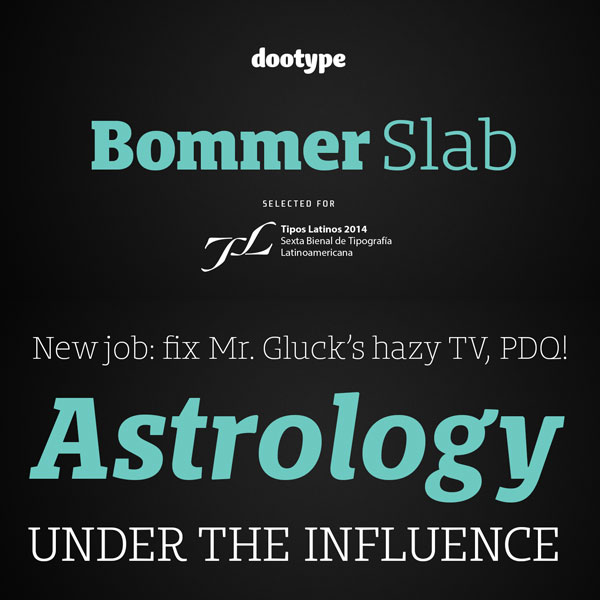
The Bommer Slab Font.
Brazilian type designer Eduilson Wessler Coan of foundry dooType has started to work on the Bommer project in January of 2014. Bommer Slab is the first published family of this project. The family includes 14 fonts, which consist of 7 uprights and 7 matching italics for each weight. Bommer offers a strong look that works great for dominant headlines. Due to the good readability, the Bommer Slab font family is also a perfect choice for text blocks. Bommer Slab includes different typographic options and features. It also supports multiple languages. The complete type family is available as both web font as well as desktop font.
The Bommer Slab font family is just the first release of a complex type system. A rounded version based on the same geometric structure will hopefully be launched in May 2014. A condensed and a sans font version will follow soon. It seems that we have something to look forward. So let’s be patient. In the meantime, we can play with the Bommer Slab font family.